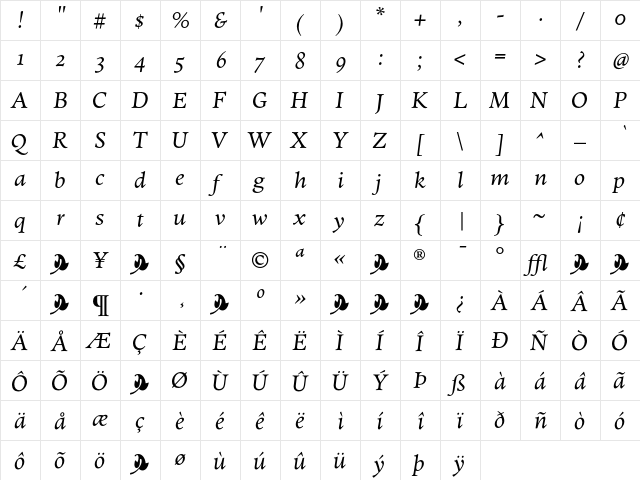
Elmhurst Italic
Design Context for Elmhurst Typeface
Elmhurst is a composed and adaptable typeface that performs quietly and consistently across a wide range of design contexts. The dynamic lean of this cut emphasises speed and emphasis in any layout.
Pro Tip: Use Elmhurst for emphasis, pull quotes, and subheadings where its slanted energy can add rhythm to the layout.